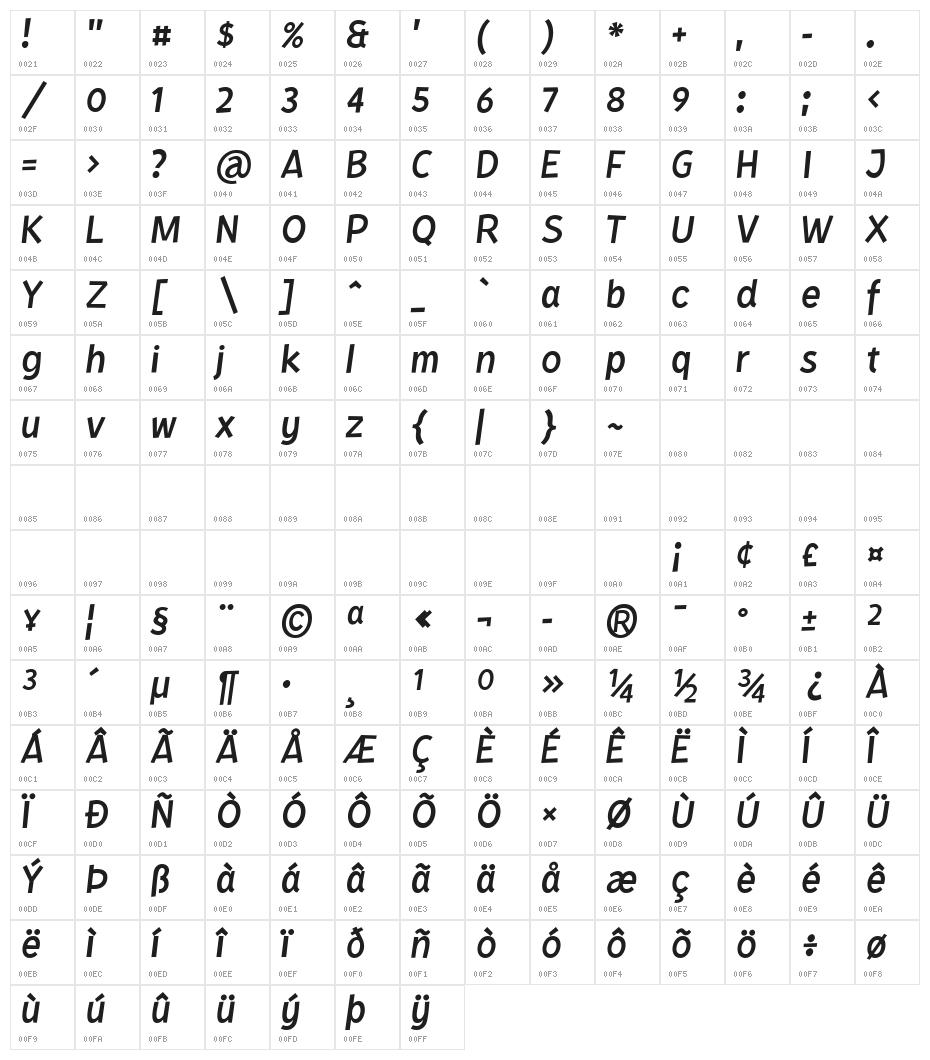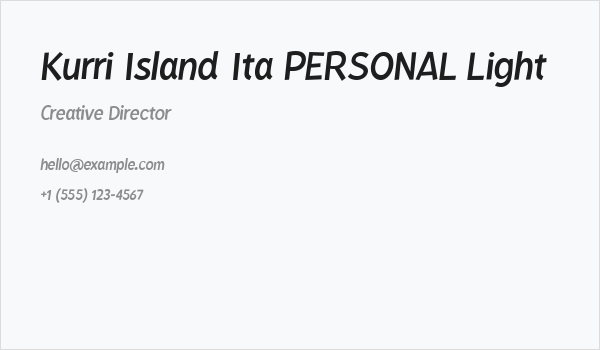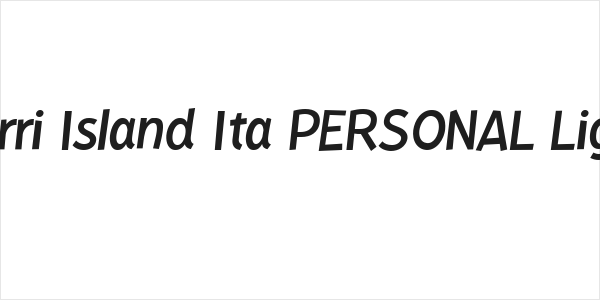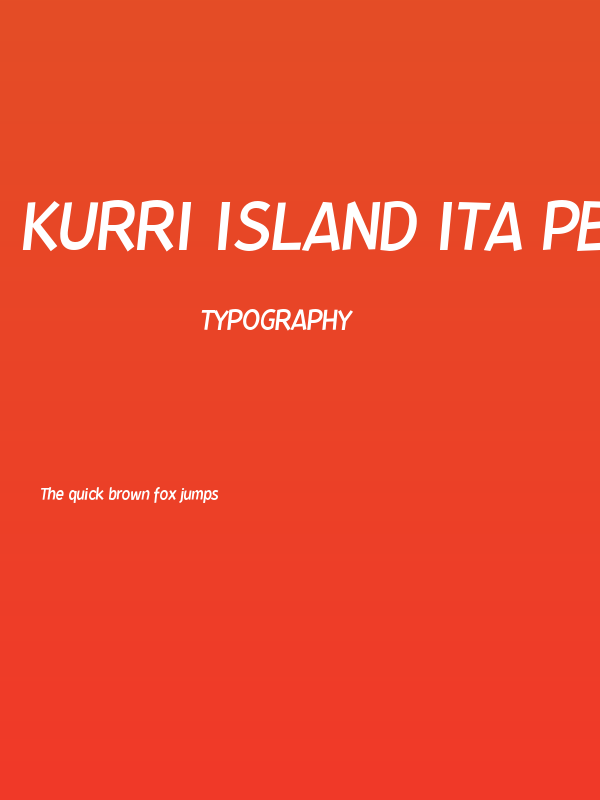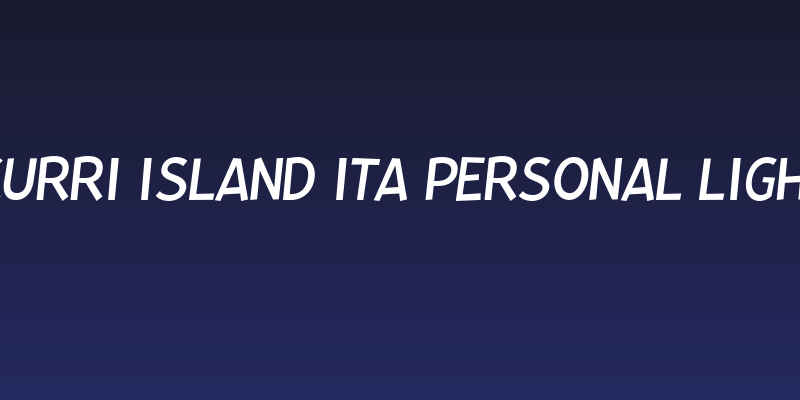
Kurri Island Ita PERSONAL Light Font
Kurri Island Ita PERSONAL Light Description
This font features a clean and modern sans-serif style with a slight italic slant, giving it a dynamic and forward-moving appearance. The characters are well-proportioned with a consistent stroke width, providing a harmonious and balanced look. The uppercase letters are bold and assertive, while the lowercase letters maintain a friendly and approachable feel. The numerals are clear and easy to read, making them suitable for various applications. Special characters are included, enhancing the font's versatility. Overall, this font exudes a contemporary and professional vibe, making it ideal for a wide range of design projects.
| Use Case | Headlines, Logos, Digital content |
| Proposed Projects | Ideal for branding, advertising, headlines, and digital content where a modern and professional look is desired. |